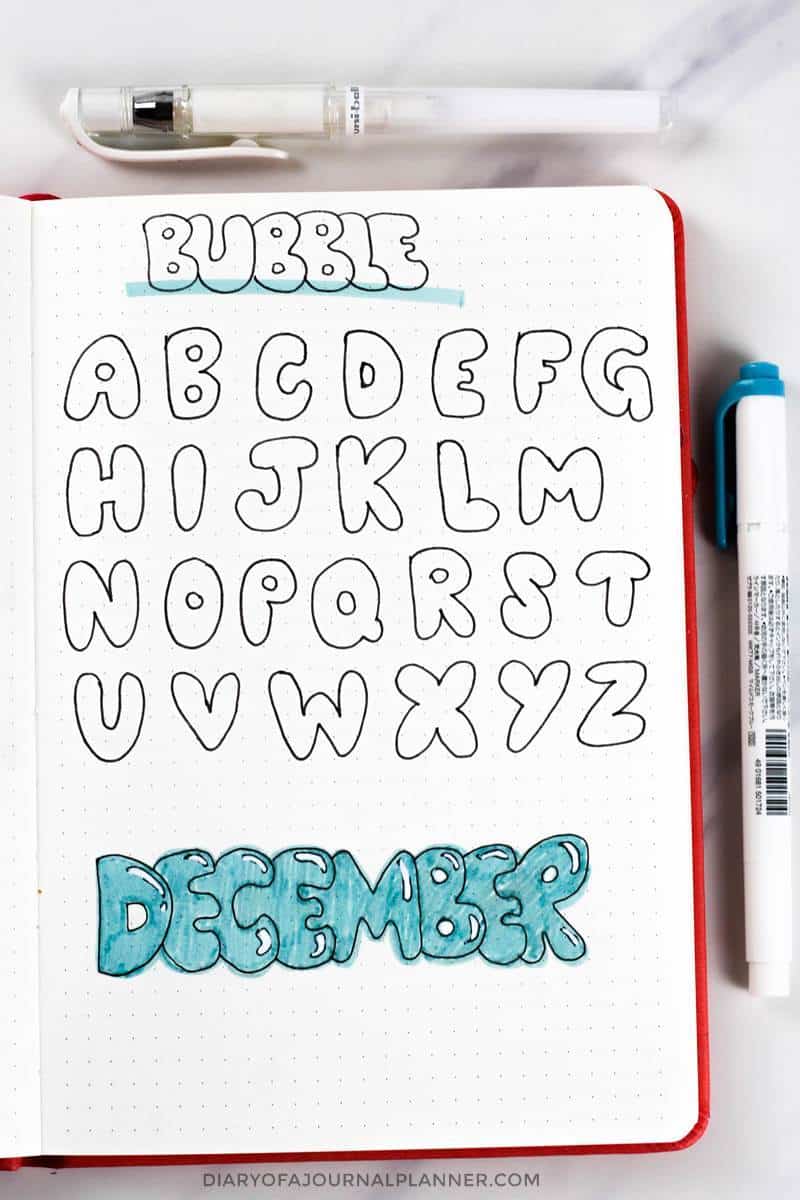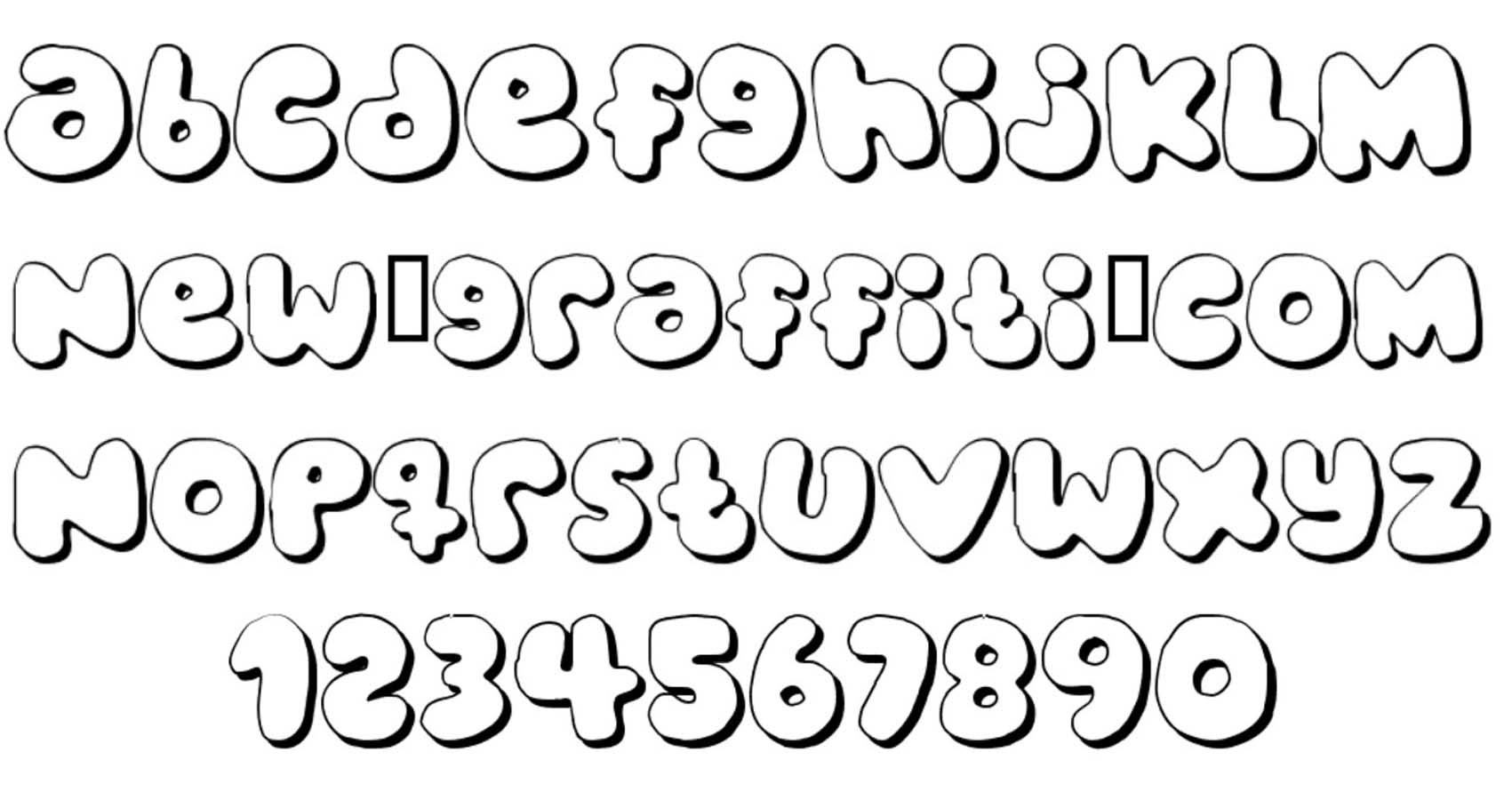
Anyone who can draw a line can do it. Youll probably like an MS Word-like editor version of the online bubble letters font - tellwtf font generator.
Abc in bubble writing.
Hi guysNow you can learn how to write Bubble letters graffiti very easily step by stepAll you have to do is create the letters by using separate oval s. Chameeta is ideal for logo design or any other design that serves the print office. Find over 100 of the best free Free Fancy Bubble Letters A-Z to Draw wallpapers in high resolution.
See more ideas about bubble letters drawing letters letters. Artist and designer Jonathan Harris quickly shows how to draw all capital letters A -. Fancy Bubble Letters A-Z to Draw.
With our free bubble letter generator you dont need to know how to draw bubble letters. Of course there were a few artists who introduced those awesome graffiti fonts and styles still used today - Phase 2 who invented the bubble style and arrow Dead Leg with his clouds or Tracy 168 Stay High 149 and Zephyr who are considered the fathers of Wildstyle. Bubble Letters Lowercase version.
How To Draw Bubble Letters In Easy Step By Step Drawing. Whatever just follow me. Graffiti Bubble Letters Generator.
Cool Bubble Letters A-Z to draw. Tellwtf symbol font changer is a bit more complicated than this generator but its got plenty of different fonts and cool additional features like finding symbols and emoji by drawing them or typing their names. This stunning font was created in 2019 and is distinguished by the presence of capital and uppercase letters numbers and all the punctuation marks you need.